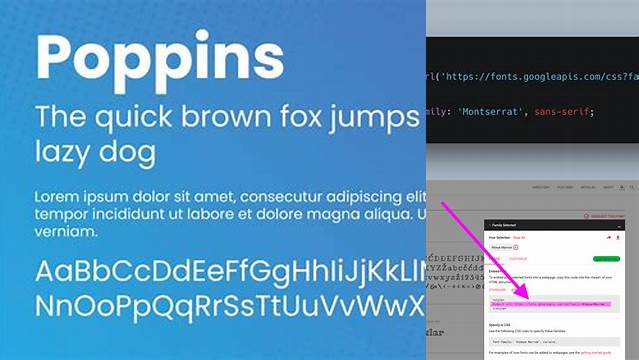
Import Poppins Font: CSS Guide For Google Fonts
Hey guys! Let's dive into how to import the Poppins font using CSS from Google Fonts. Poppins is a super popular sans-serif typeface known for its clean and geometric design. It’s perfect for websites, apps, and all sorts of digital projects. Using Google Fonts makes it incredibly easy to incorporate Poppins into your projects. We're going to walk through all the steps, ensuring you get it right every time. Whether you're a seasoned developer or just starting out, this guide has got you covered. We'll explore various methods, tips, and tricks to make the process smooth and efficient. So, grab your favorite text editor, and let's get started!
1. Understanding Google Fonts and Poppins
Before we jump into the how-to, let’s quickly chat about Google Fonts and why Poppins is such a great choice. Google Fonts is a massive library of free, open-source fonts that you can use on your websites. It's a fantastic resource, especially when you want to keep your site loading quickly without hosting fonts yourself. Poppins, in particular, stands out because of its versatility and modern look. It’s super legible, making it ideal for body text, headings, and UI elements. Understanding the basics here will help you appreciate why importing fonts correctly is so important for your project's overall aesthetic and performance. We’ll also touch on the different weights and styles available within the Poppins family, so you can make informed decisions about which ones to include in your CSS.
3. Selecting Font Styles and Weights
Now comes the fun part: picking which styles and weights of Poppins you want to use. On the font's page, you’ll see a list of weights like 100 (Thin), 200 (Extra Light), 300 (Light), 400 (Regular), 500 (Medium), 600 (Semi-Bold), 700 (Bold), 800 (Extra Bold), and 900 (Black). Think about your design – do you need a super light weight for some delicate text, or a bold weight for impactful headings? Each weight adds to the file size, so it's a good idea to be selective. A sweet spot for many projects includes Regular (400), Medium (500), and Bold (700). Click the little plus sign next to each style you want. A panel will slide out from the right, showing your selections. This panel is your hub for grabbing the import code, which we'll get to next!
7. Understanding Font Weights and Styles in CSS
Let’s dig a little deeper into font weights and styles in CSS. Remember those weights you selected earlier (like 400, 500, 700)? These correspond to the font-weight property in CSS. So, if you want to use the bold version of Poppins, you'd use font-weight: 700;. Here’s an example: css h1 { font-family: 'Poppins', sans-serif; font-weight: 700; /* Bold */ } p { font-family: 'Poppins', sans-serif; font-weight: 400; /* Regular */ } You can also use numeric values like 400 for Regular, 500 for Medium, and so on. If you selected italic styles, you can use font-style: italic;. Understanding these properties allows you to fine-tune the appearance of your text and create a visually appealing hierarchy on your page. It’s all about using these tools to bring your design vision to reality!
8. Alternative Method: Using the Tag
Okay, let’s talk about another way to import Poppins: using the tag. This method is an alternative to the @import method and is often recommended for better performance. Instead of adding a line to your CSS, you add a tag to the section of your HTML. Head back to the Google Fonts page, and in that same panel where you got the @import code, click on the option. You’ll see a code snippet that looks something like this: html <link rel="preconnect" href="https://fonts.googleapis.com"> <link rel="preconnect" href="https://fonts.gstatic.com" crossorigin> <link href="https://fonts.googleapis.com/css2?family=Poppins:wght@400;500;700&display=swap" rel="stylesheet"> Copy these lines and paste them into the section of your HTML file. This method loads the font in a way that can be more efficient, especially for larger websites. So, if you’re looking to optimize your site’s loading speed, the tag is definitely worth considering.
9. Comparing @import vs. for Performance
Now, let’s dive into the performance differences between using @import and . Generally, using the tag is considered better for performance. Here’s why: when you use @import in your CSS, the browser has to download the CSS file, then discover the @import statement, and then download the font file. This can create a delay in rendering the page. On the other hand, the tag allows the browser to start downloading the font file as soon as it parses the HTML, which can speed up the initial page load. For small websites, the difference might be negligible, but for larger sites with lots of CSS, the method can make a noticeable improvement. So, if you're aiming for optimal performance, especially on larger projects, using the tag is the way to go.
12. Optimizing Font Loading for Speed
Speed matters! Let’s chat about optimizing font loading for a faster website. We’ve already touched on using the tag instead of @import and using font-display: swap;. Here are a few more tips. First, only include the font weights and styles you actually need. Every extra weight adds to the file size. Next, consider using a Content Delivery Network (CDN) like Google Fonts. CDNs host your fonts on servers around the world, so they load quickly no matter where your users are. Another trick is to preload your fonts. This tells the browser to download the font file as early as possible. You can do this by adding a tag with `rel=